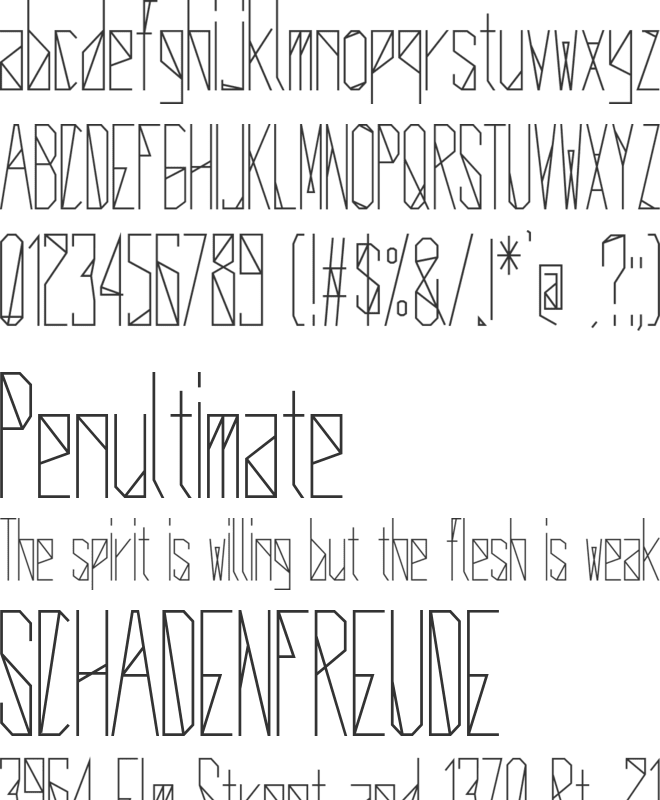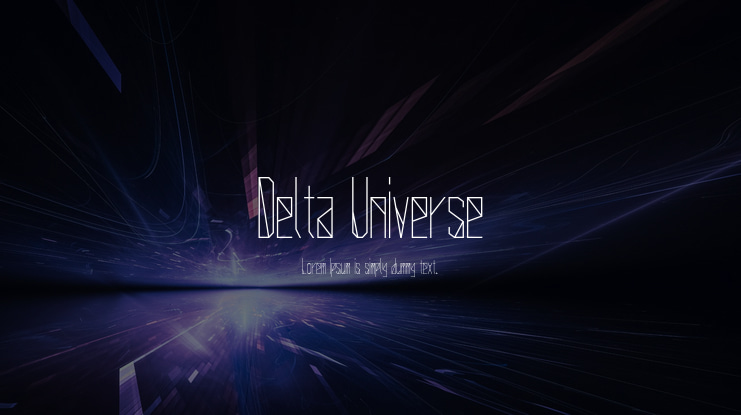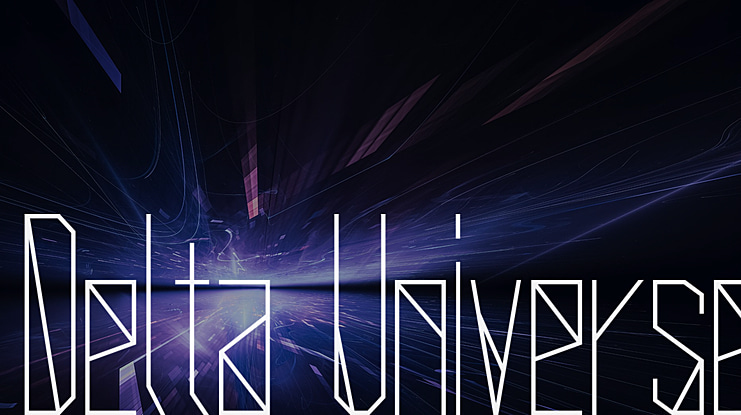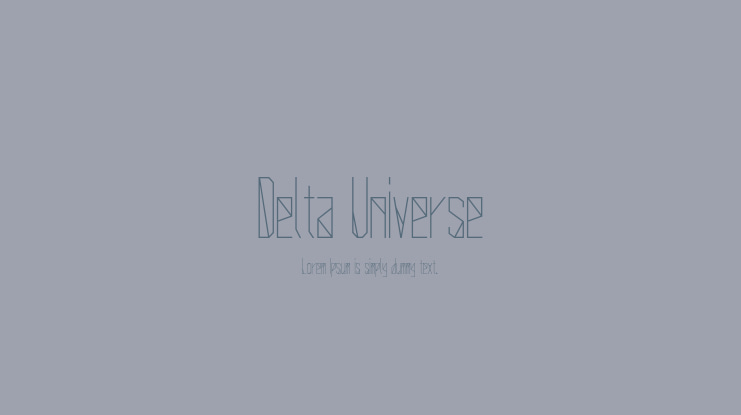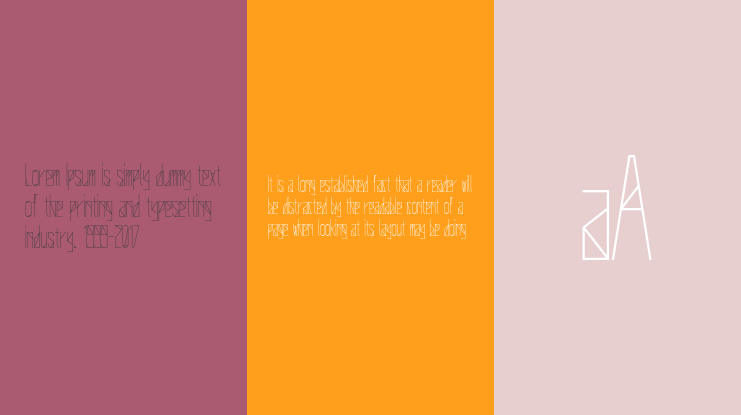
Delta Universe Font
Delta Universe font is inspired by zodiac sign.
Delta, Greek alphabet Δ, symbolizes triangle constellation. If you look at them closely, you can see triangle hidden in the font.
' Each delta(Letter) has gathered, universe has formed' This is the concept of Delta Universe.
Delta Universe brings you countless stars in the space. It is suitable font for title of various publications or headlines.